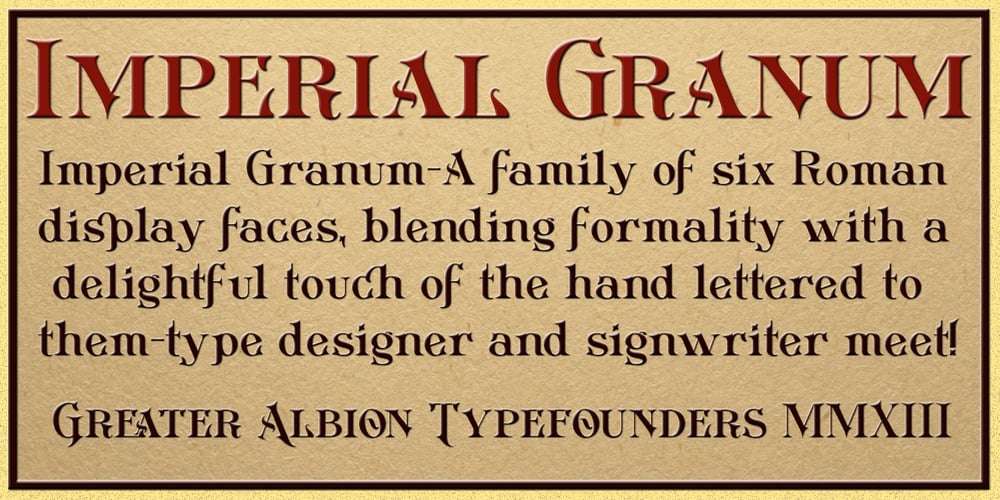
Imperial Granum
Imperial Granum font
Imperial Granum Font Family was designed by Paul James Lloyd and published by Greater Albion Typefounders. Imperial Granum contains 6 styles and family package options. Imperial Granum is designed primarily as a Roman Title and lettering face, combining formality and dignity with a delightful touch of ‘Arts and Crafts’ like hand drawn design. The regular form of Imperial Granum (which is inspired by a beautifully hand-lettered early 20th century food advertisement) offers two sizes of capitals, in order to provide true ‘small-capitals’ lettering. Similarly, the Ornamental form consists exclusively of capitals and is designed to be able to mix and match with the regular form. The miniscule form can, of course, be used in its own right, but is primarily intended to complement the regular and ornamental forms. All three faces are offered in regular and bold weights. Explore some Edwardian Arts and Crafts typographical fun today!